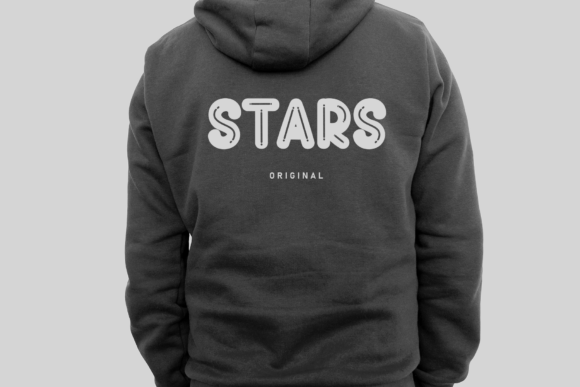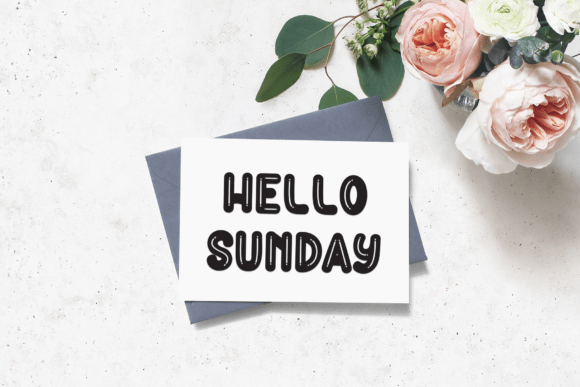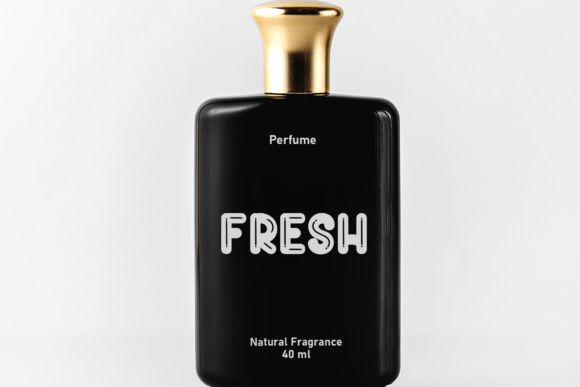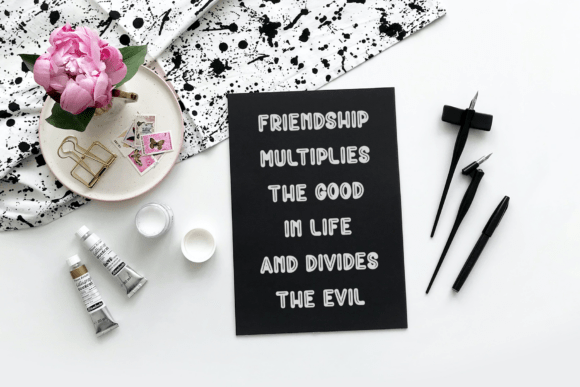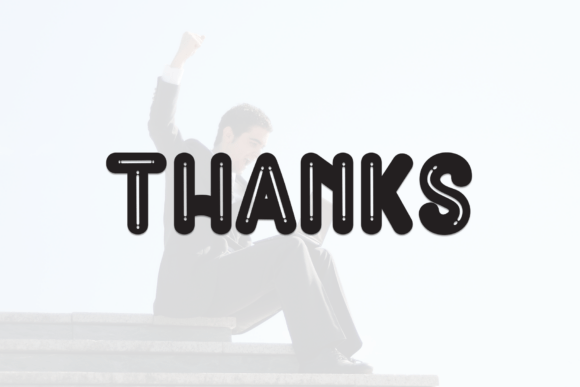
The Font That Stole My Heart: A Deep Dive into “Become”
I’ll never forget the moment I stumbled upon the perfect font for a wedding invitation project. I had been scrolling through font after font, but nothing seemed quite right. That was until I met “Become”. This charming, hand-drawn display font has been a game-changer for my designs, and I’m excited to share its magic with you.
What I Love About “Become”
- ✨ Its unique, personable style adds a touch of warmth and cheerfulness to any design
- 🎉 Perfect for wedding invites, personalized greeting cards, and other special occasion designs
- 💫 Brings a playful spark to any project, making it perfect for designs that need a bit of whimsy
While “Become” is an amazing font, there are a few things to keep in mind:
- ⚠️ Some users may find the font a bit too playful or casual for certain projects
- 🤔 It may not be the best choice for body text or long-form content, as it’s designed for display purposes
The Story Behind “Become”
“Become” was designed with the intention of creating a font that would bring joy and warmth to any design. Its creator wanted to craft a typeface that would be perfect for special occasions, like weddings and birthdays, but also versatile enough for everyday use. The result is a font that’s both playful and elegant, with a unique personality that’s hard to find.
Q: Is “Become” suitable for body text?
A: While “Become” is a beautiful font, it’s designed for display purposes and may not be the best choice for body text or long-form content. For body text, you may want to choose a font that’s more legible and easier to read.